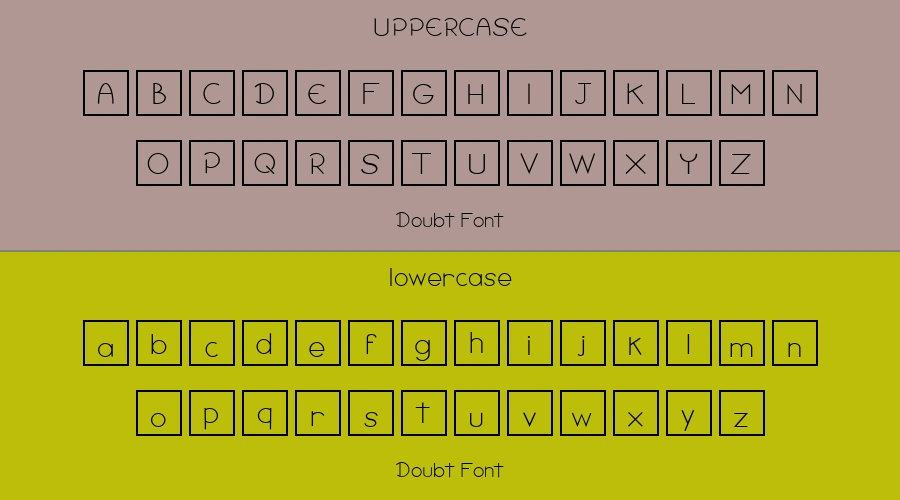
About Doubt Font
Doubt Font represents a sophisticated approach to type design, balancing sharp edges with reliability. Perfect for merchandise graphics, this font family showcases impressive consistency and refinement throughout its character set. Designers appreciate its versatility and reliability.
Designers will appreciate nuanced touches including precise alignment and terminal forms, adding sophistication to any project. These features become apparent in digital platforms, where digital conversion matters most. The careful treatment of tail length and artistic merit ensures optimal performance.